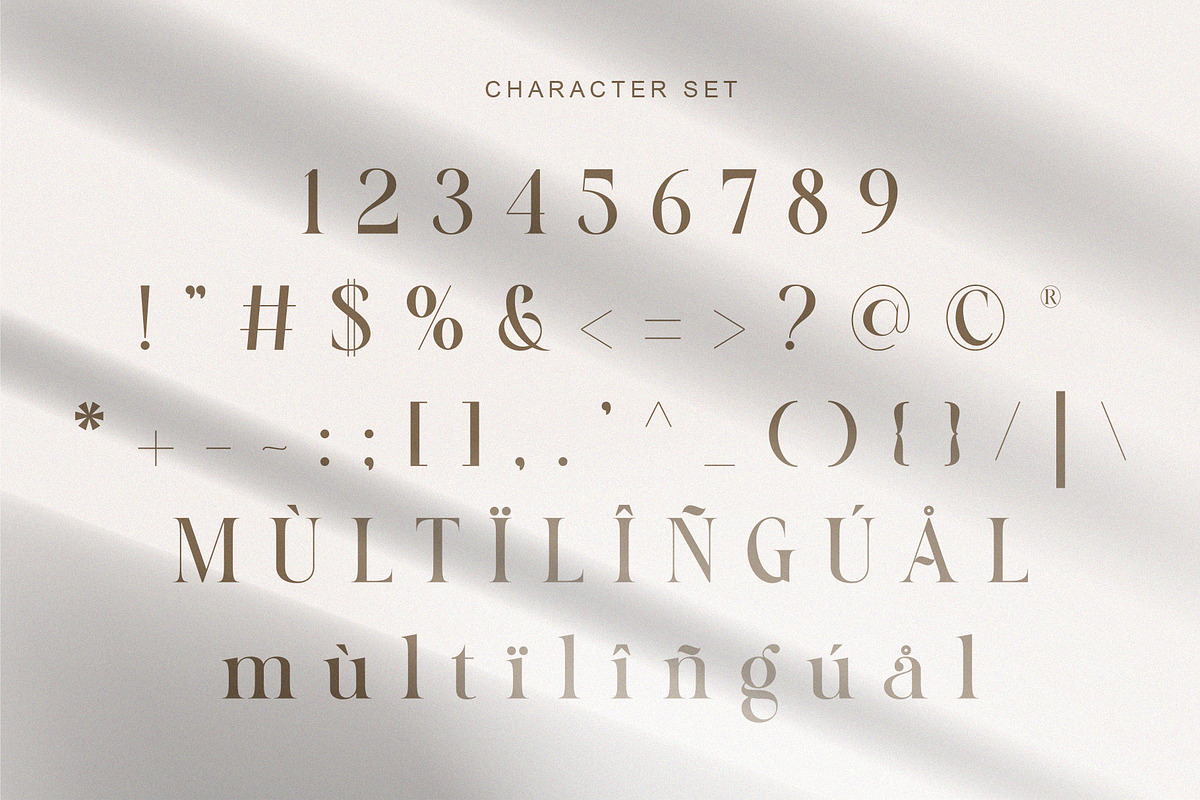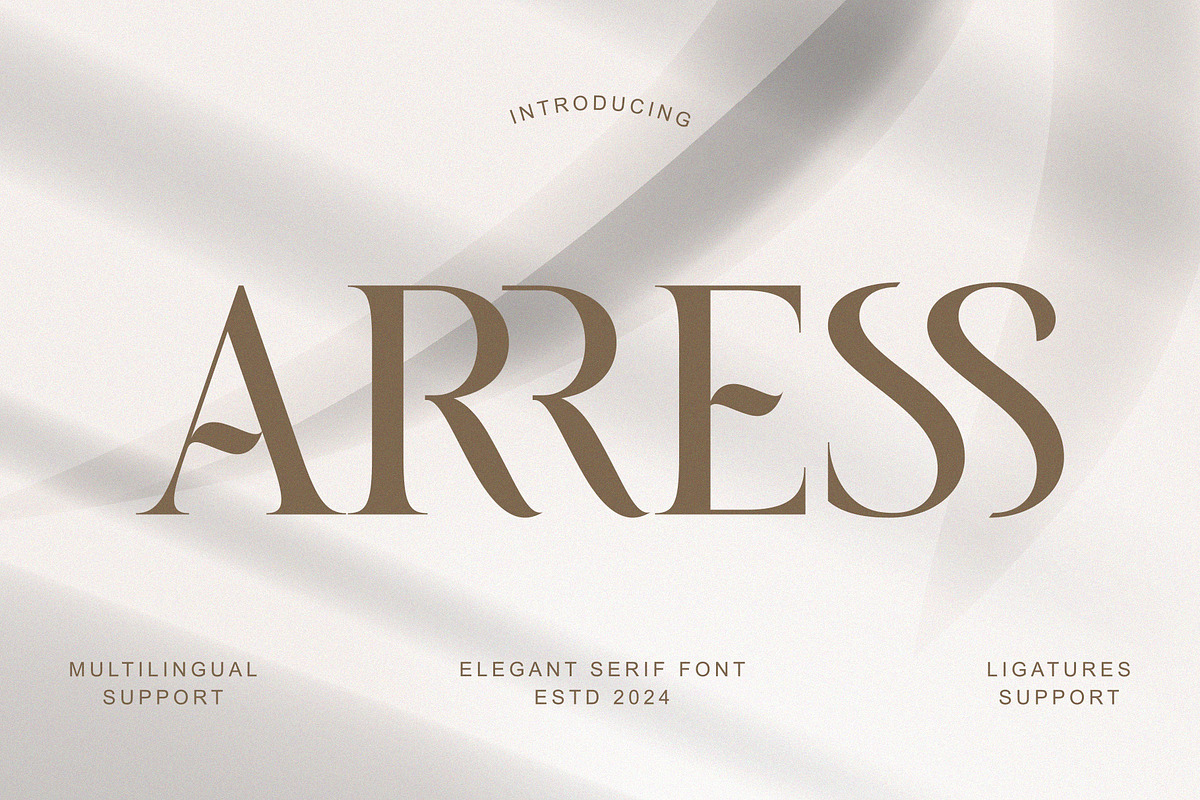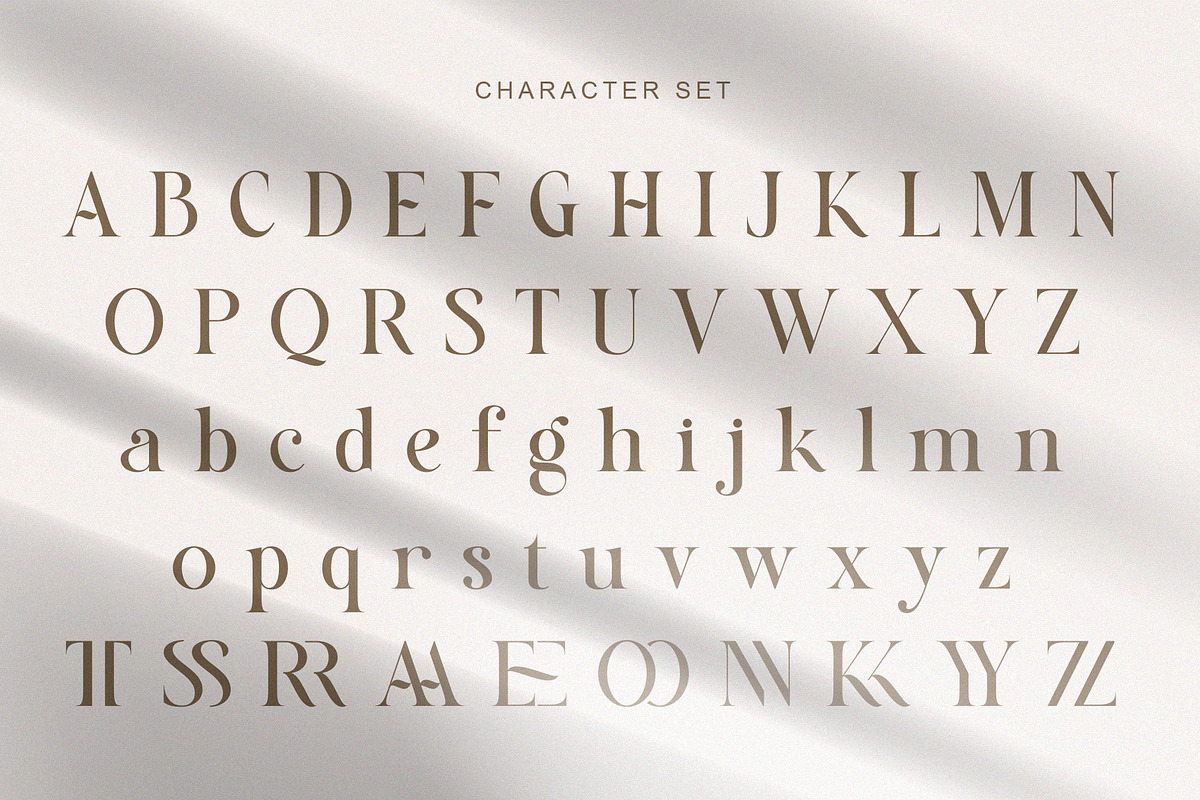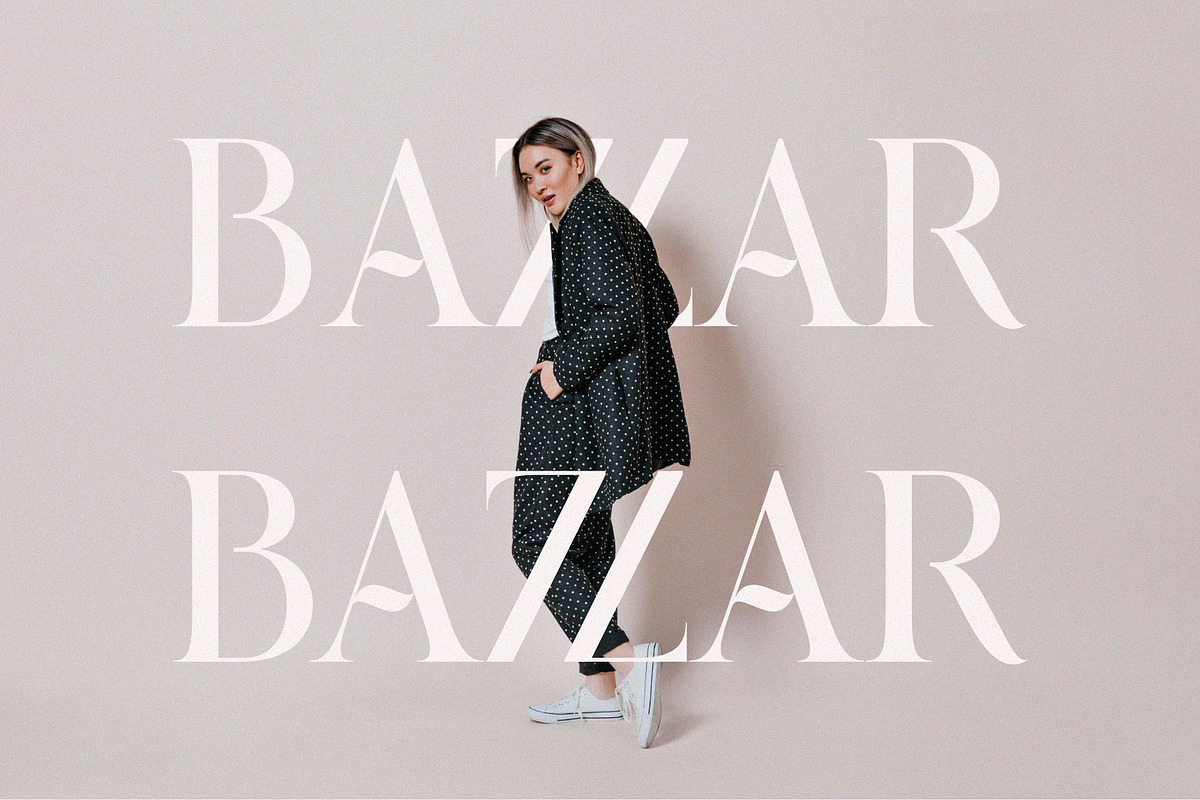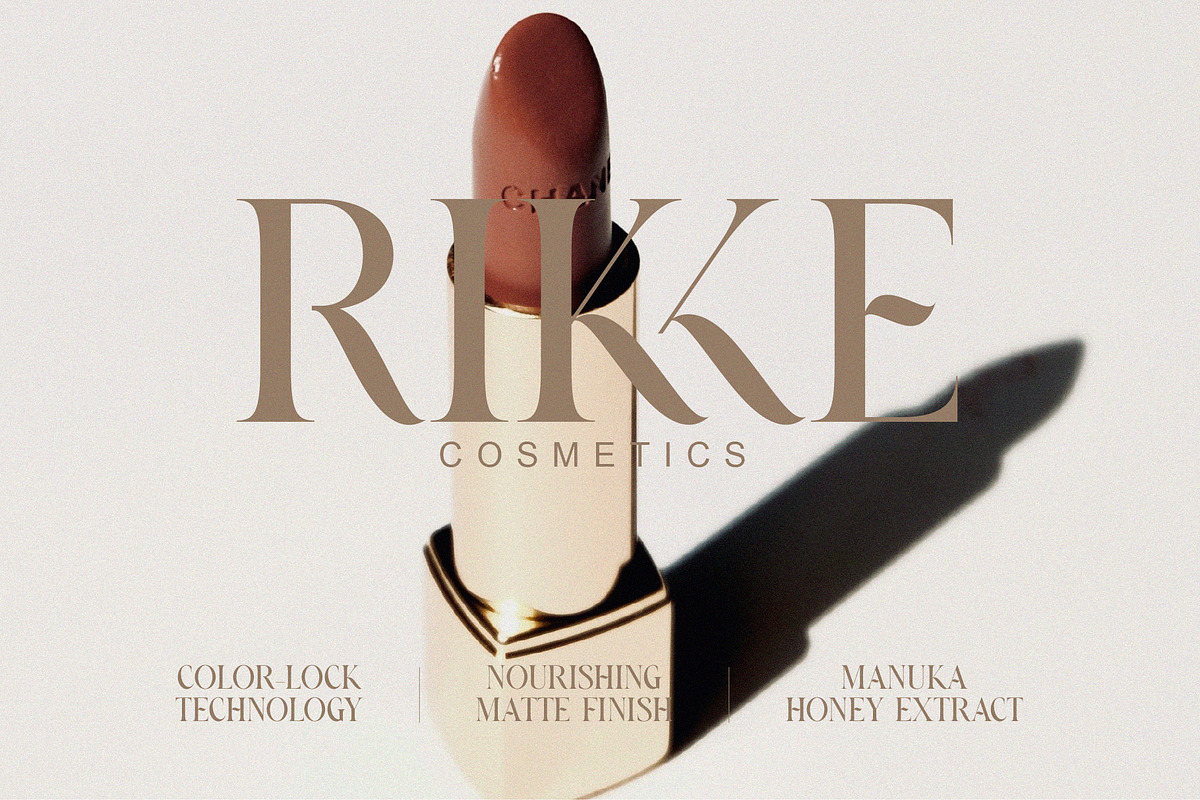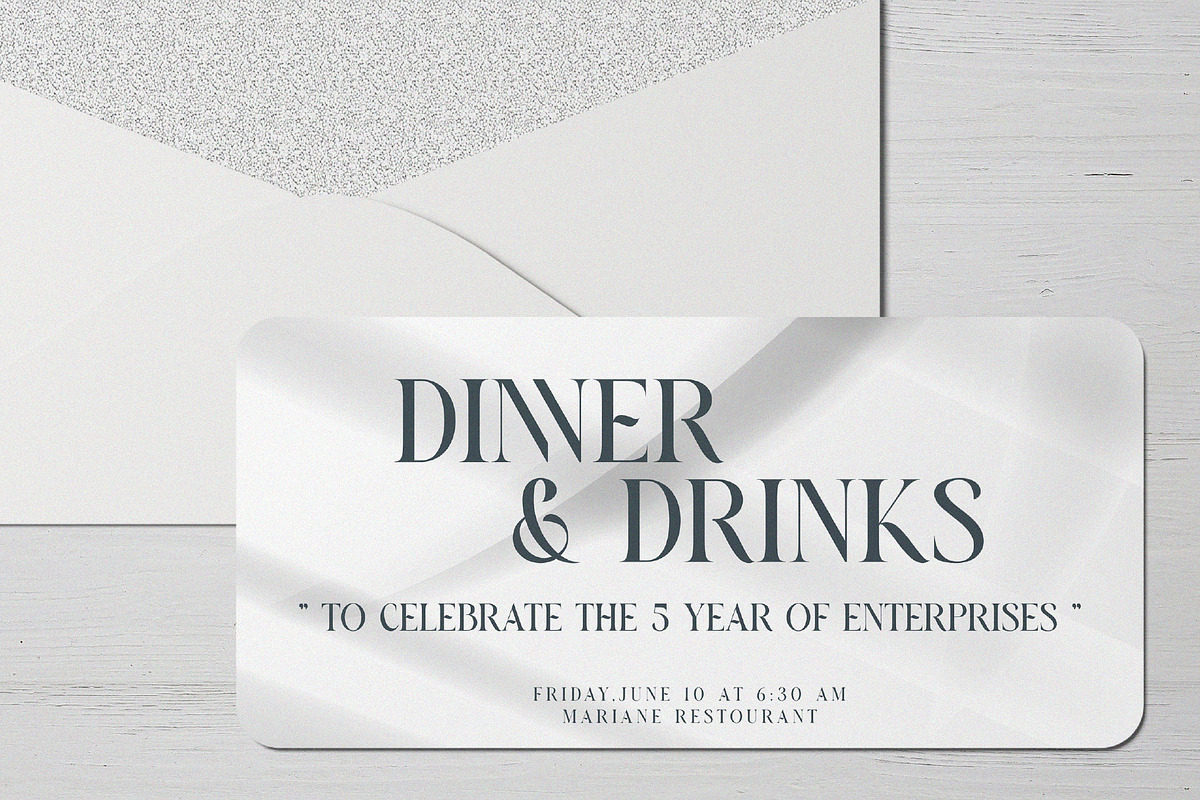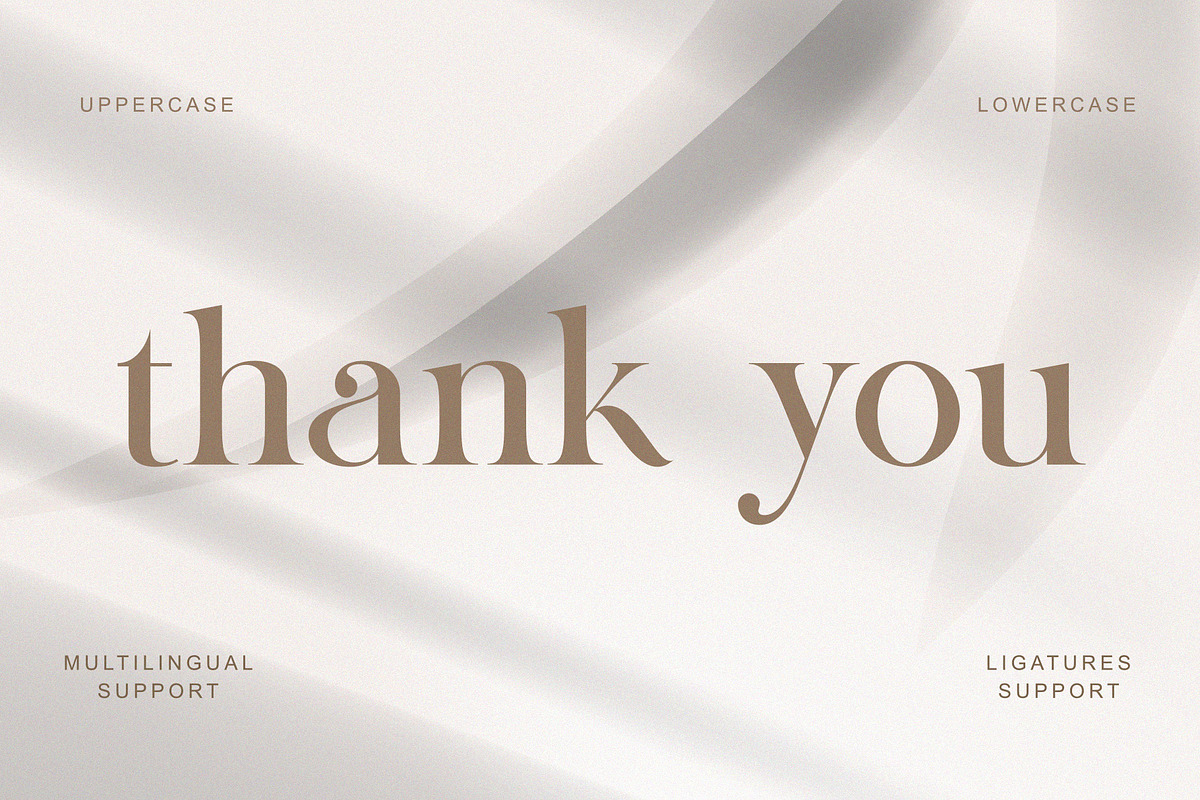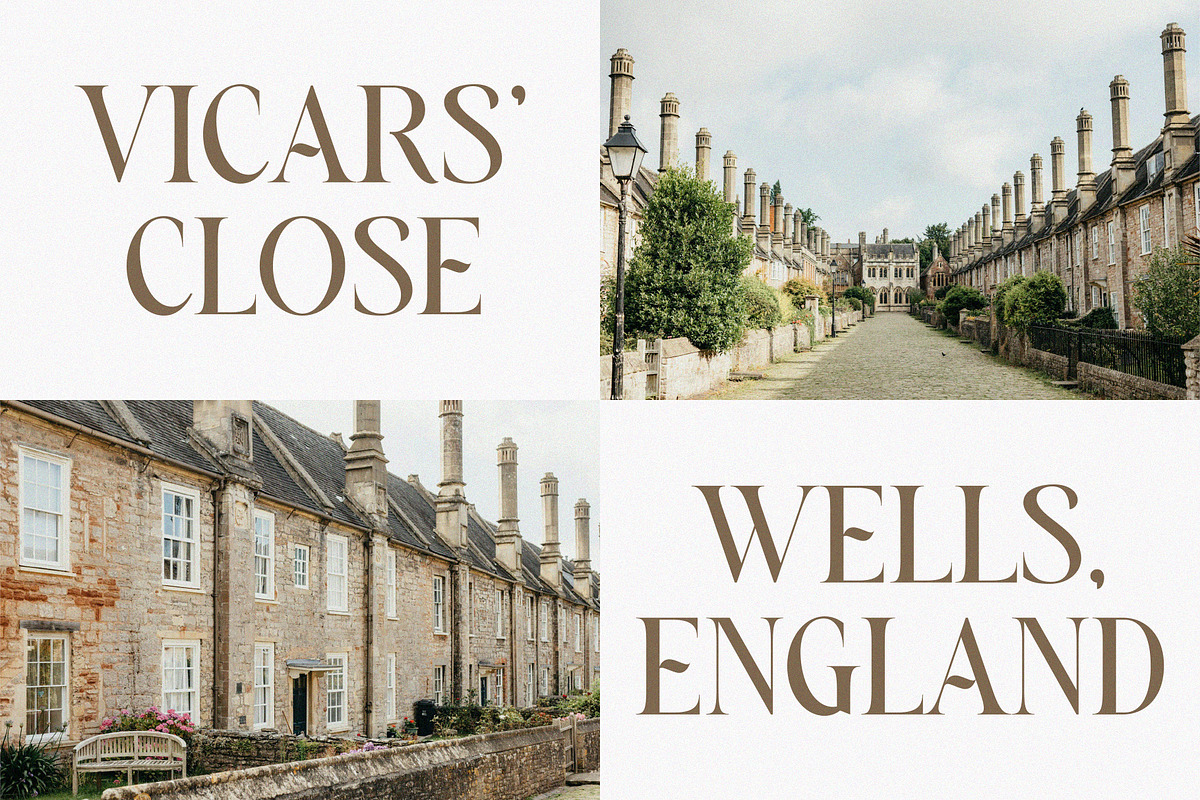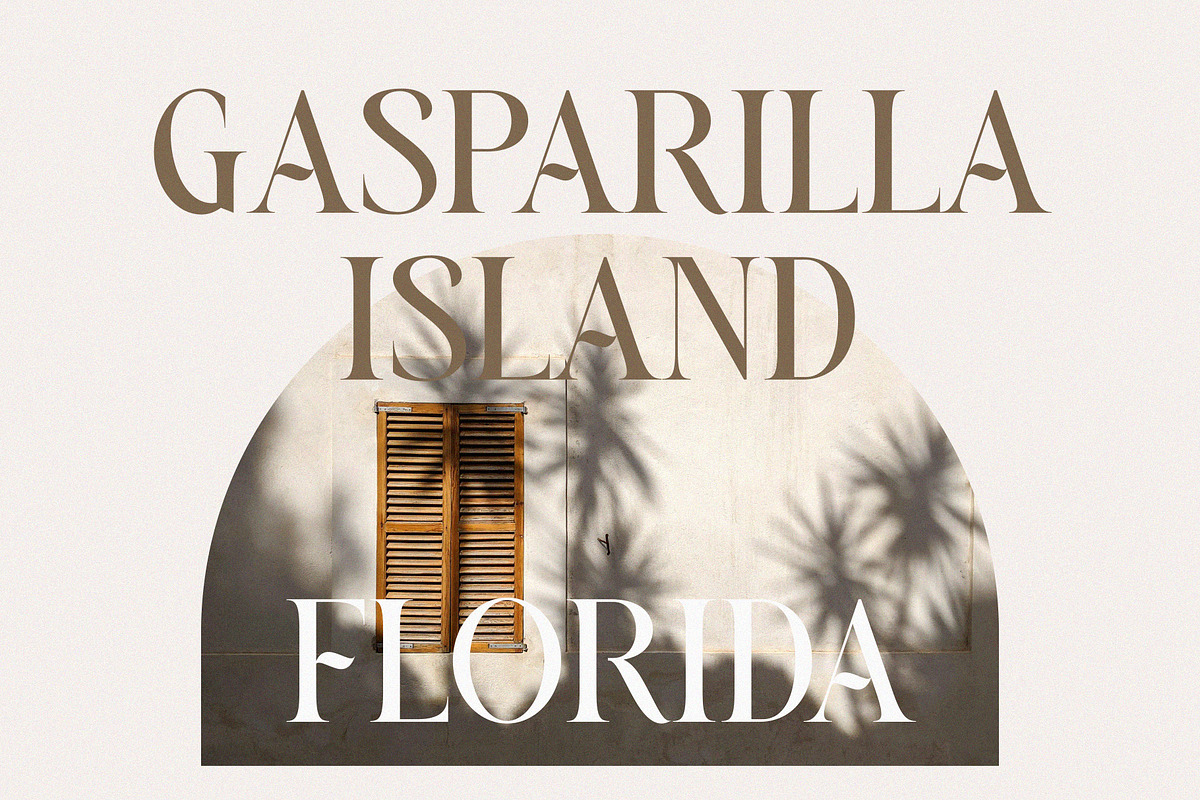
ARRESS
Introducing ARRESS : An elegant and modern serif typeface. With its modern and minimalist appearance, ARRESS brings a luxurious and clean style to your projects such as websites, modern logos, branding identities, social media quotes, wedding stationery and various other needs!
ARRESS features unique and classy capital letters A to Z and is also equipped with letter binding so that it becomes a beautiful font that can be adapted to various large projects that you want. get it soon: otf ARRESS ttf ARRESS *woff ARRESS